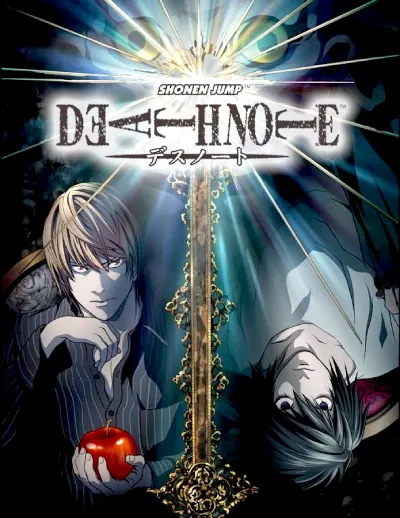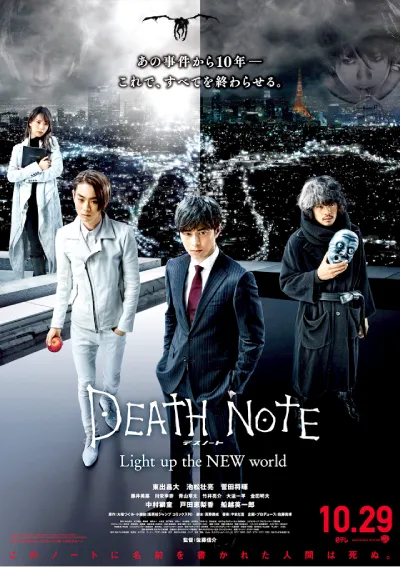
Today we will talk about Death Note font and where it comes from.
“Death Note” is a popular Japanese manga series that follows the story of Light Yagami, a high school student who discovers a supernatural notebook, known as the “Death Note”. This notebook, which belonged to the shinigami (death god) Ryuk, has the power to kill anyone whose name is written in it. Light uses the notebook in his quest to rid the world of evil, leading to a complex conflict with those who oppose him, including the brilliant detective known as “L”.
As for the font used in “Death Note”, several fonts were used in the book covers and posters of the film adaptations. The font used on the Death Note book itself was recreated by FontGet, which is also called “Death Note Font“.
Another font, “Death Font“, was created by Joshua1985 and resembles the book cover font.
The character “L” uses a font known as “Cloister Black” for his signature.
There is a font that match with Ryuks Hand writing called Ryuks Handwriting font.
It’s important to note that when using the “DEATH Font”, capital letters need to be inputted to achieve the same effect as seen on the book cover title.